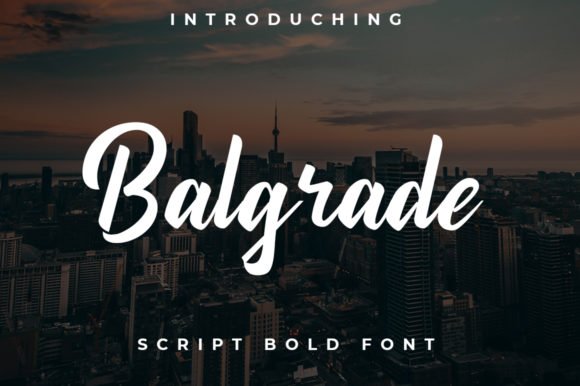
The Perfect Blend of Elegance and Modernity
There’s nothing quite like the thrill of discovering a new font that sparks your creativity. You’re brainstorming ideas for a project, and suddenly, the perfect font comes to mind, elevating your entire design. For many designers, this moment is a game-changer, and it’s exactly what happens when you fall in love with the Balgrade Font.
Designed to bring a touch of sophistication to your projects, the Balgrade Font is an exquisite handwritten font that masterfully combines classy calligraphic influences with a fresh, contemporary feel. Its versatility makes it an invaluable addition to any designer’s toolkit, allowing you to create stunning, professional-looking designs that leave a lasting impression.
With the Balgrade Font, you’ll be able to take your projects to new heights, and we can’t wait to see the amazing things you’ll create with it.
Key Features of Balgrade Font
- Unique Characteristics: The font features a unique blend of modern and traditional design elements, with intricate details and ornate flourishes that give it a distinctive look.
Review of Balgrade Font
Overall, I’d say the Balgrade font has its good and bad points, but let’s dive into what makes it tick. ✨ One thing I really appreciate is its unique, modern design. The font is perfect for those who want to add a touch of sophistication to their digital or print projects. The font’s sleek lines and clean shapes make it a great choice for headings, titles, and even body text.
Another positive aspect is its high level of customization options. You can adjust the font’s weight, width, and even the spacing between characters to suit your specific needs. This level of control is a must-have for designers who want to fine-tune their typography.
While the Balgrade font has its strengths, there are some limitations to consider: ⚠️
- Limited character set: The font only includes a limited set of characters, which may not be suitable for projects that require a broader character set.
- Not ideal for small text: The font’s design may not be the best choice for small text sizes, as the characters can become difficult to read.
Overall, the Balgrade font is a solid choice for designers who want a modern, customizable font. However, it may not be the best option for projects that require a broad character set or small text sizes.
Getting the Most Out of Balgrade Font
To get the most out of Balgrade Font, try combining it with other fonts for a unique look. Experiment with different font sizes and styles to create visual interest. Balgrade Font works well for headings and titles, while other fonts can be used for body text.
Balgrade Font is commonly used for:
– Headings and titles
– Packaging and labels
– Print materials and brochures